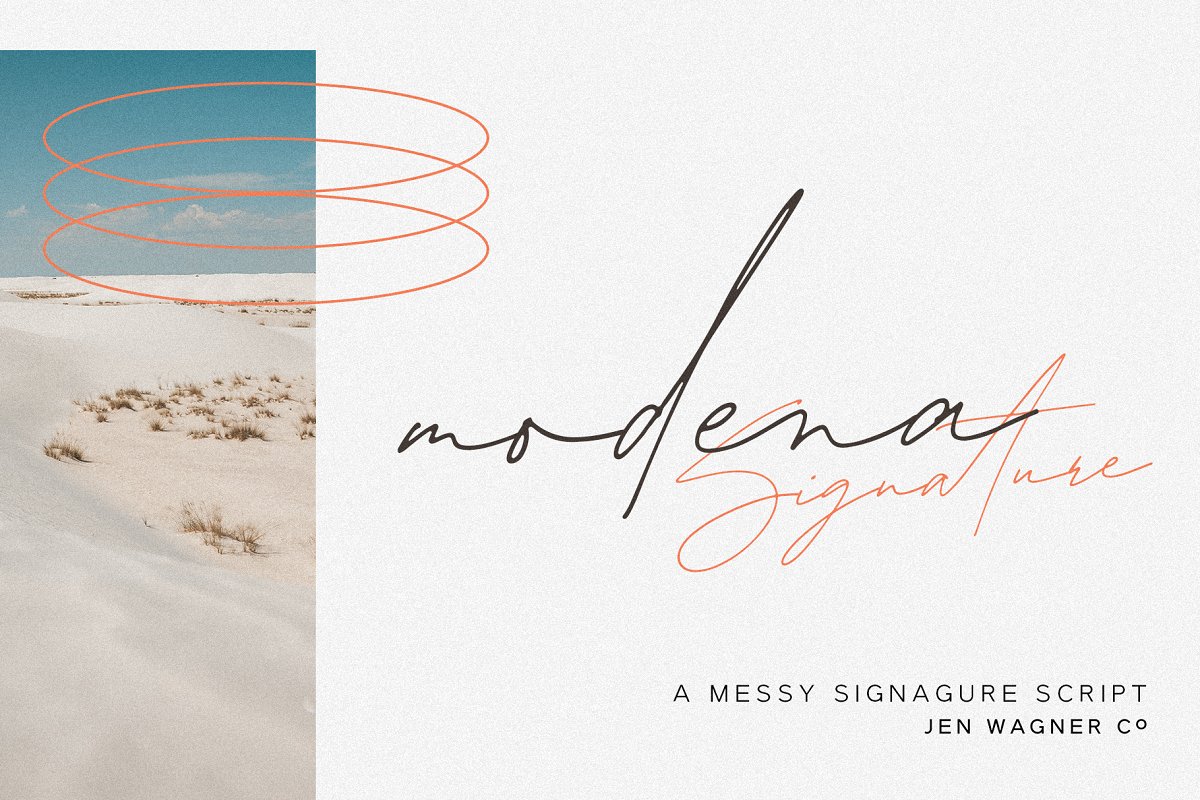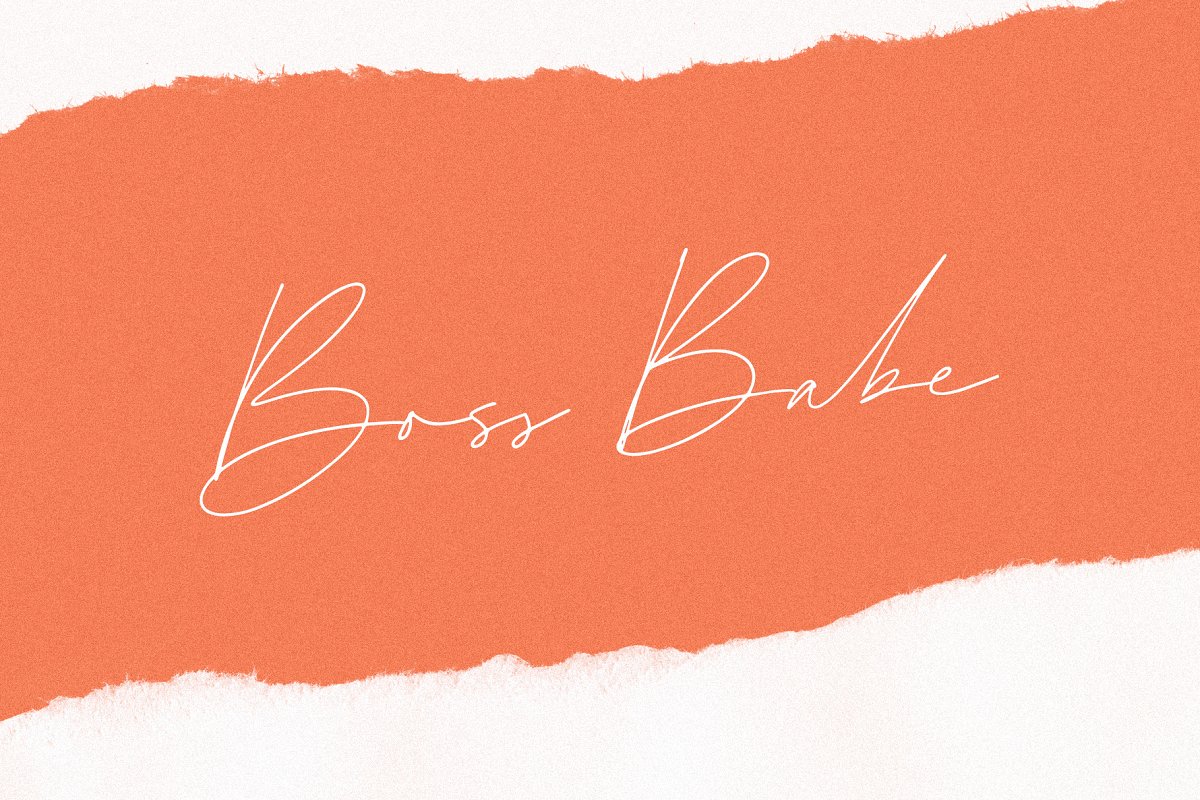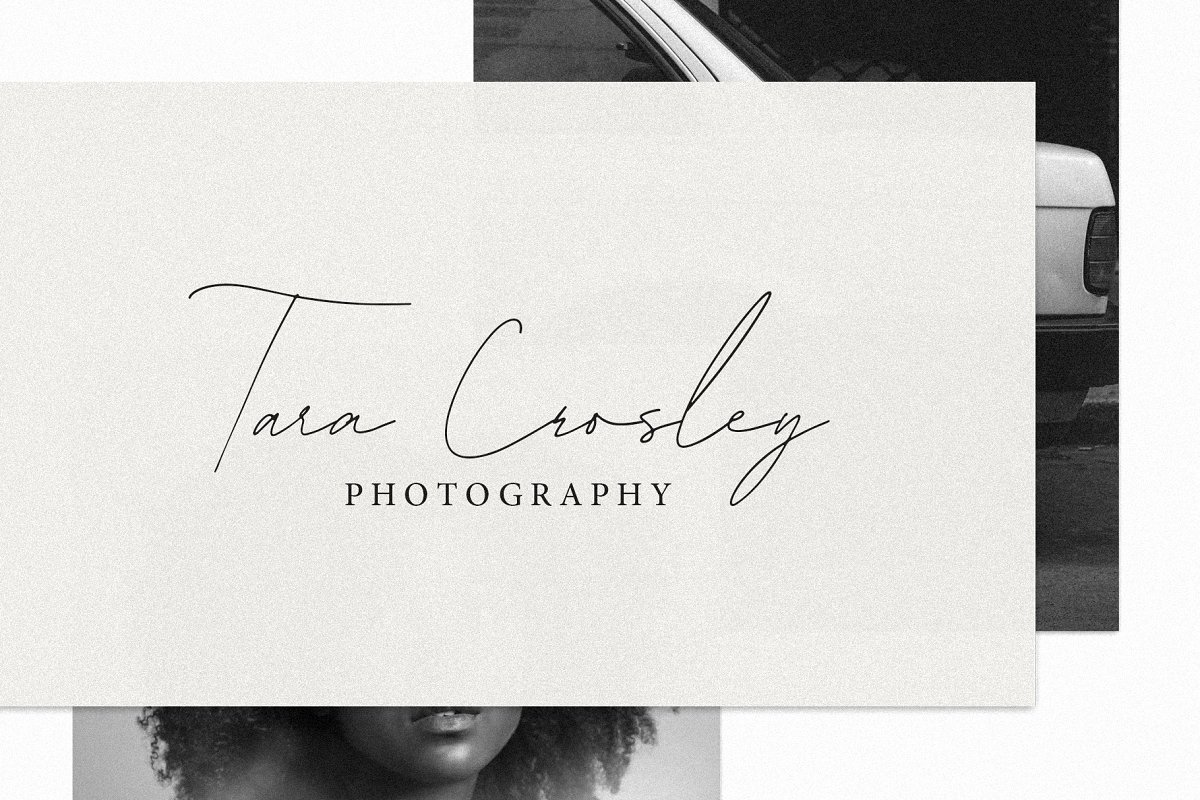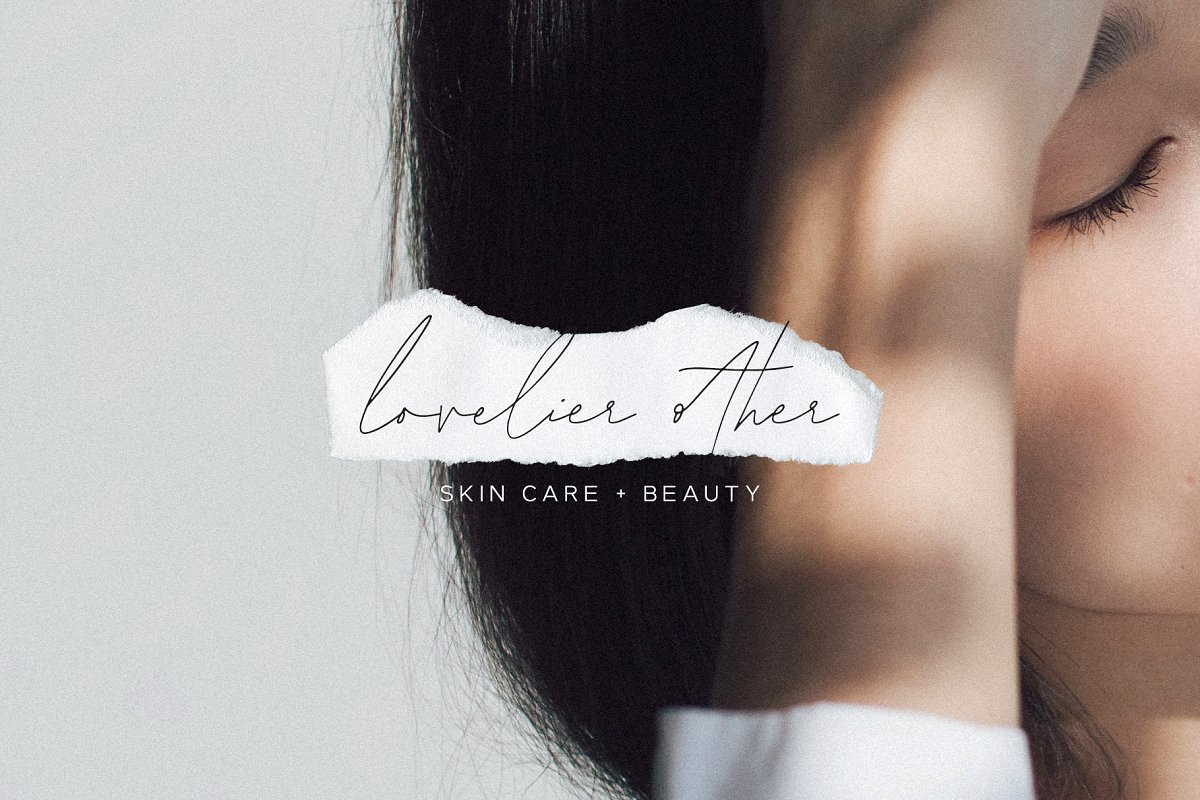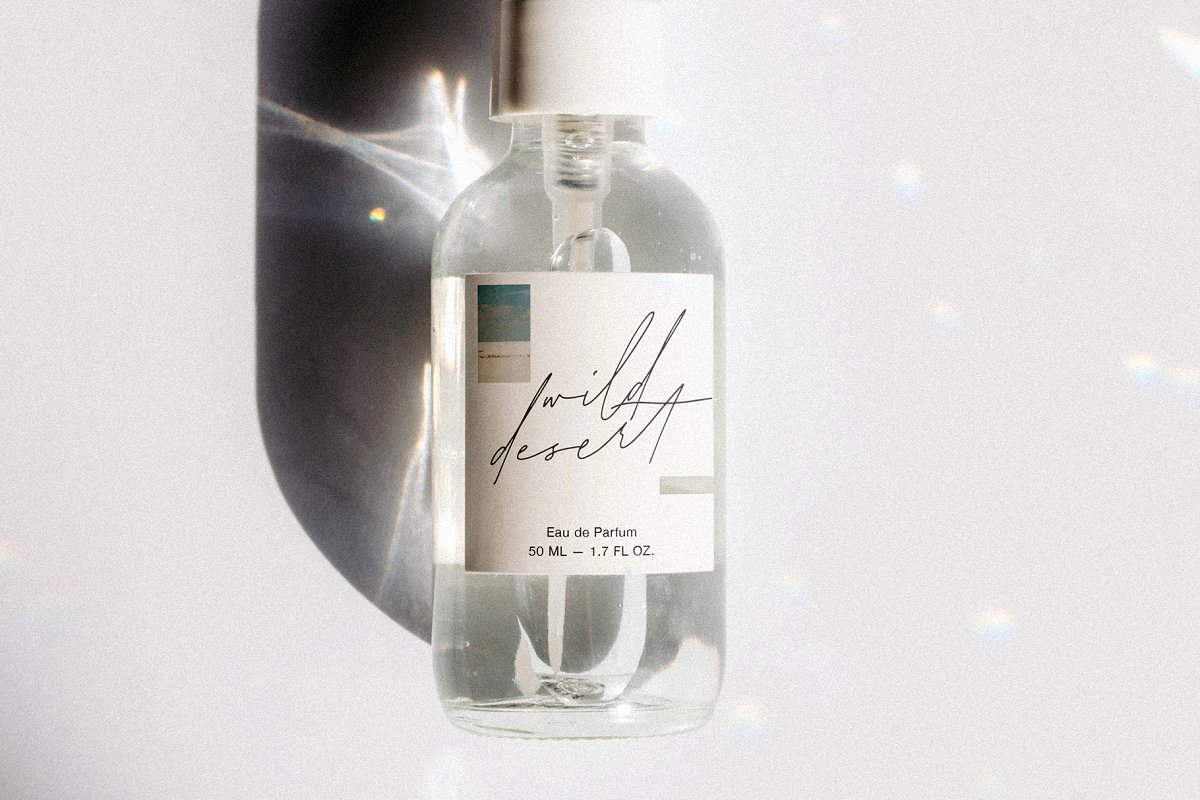
About the Modena Signature | Messy Script
Have you had your eye on the Modena duo and just wanted the script? Now you can get it by itself!FeaturesUppercase & lowercase letters, numbers, & punctuationAlternates for each letter50+ ligatures help your words look hand-writtenNon-English support for the international designerModena Signature is the script from the Modena Duo, now available on its own!(Get the Modena font duo with bonus logo templates here: https://creativemarket
com/jenwagnerco/3033763-Modena-Duo-with-6-Free-Logos?u=jenwagnerco )While other scripts are more neat and classical, Modena Signature has a more relaxed feel, making it perfect for quotes, web headers, and even logos, Plus, there are alternates for each letter (opentype feature), so you can edit your text to avoid repeating the same letters, making it look hand made!Modena Signature also includes over 50 ligatures, helping ensure your type looks totally organic and hand-done